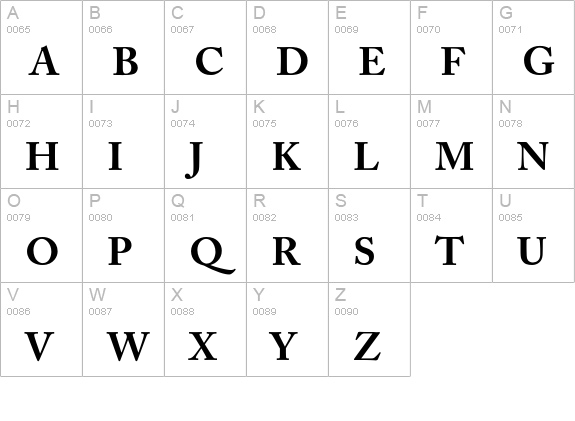
Adobe Caslon Bold Font Details
Adobe Caslon Bold is a strong, high-contrast variant in the Adobe typeface family \xE2\x80\x94 well suited to headlines, attention-grabbing titles, and strong calls-to-action.
Adobe Caslon Bold is a classic and timeless serif font that exudes elegance and sophistication. With its bold weight, it commands attention and adds a touch of authority to any design project. The sturdy serifs and graceful curves of this typeface make it perfect for headlines, titles, and other prominent text elements. What sets Adobe Caslon Bold apart is its versatility - it can be used in a variety of design applications, from print materials to digital media. Whether you're designing a poster, brochure, website, or logo, this font will elevate your project to the next level. The best part is that Adobe Caslon Bold is available for free download at FontsMarket.com. So you can add this exquisite font to your collection without any cost. Don't miss out on the opportunity to enhance your designs with the timeless beauty of Adobe Caslon Bold. Download it today and see the difference it makes in your projects!